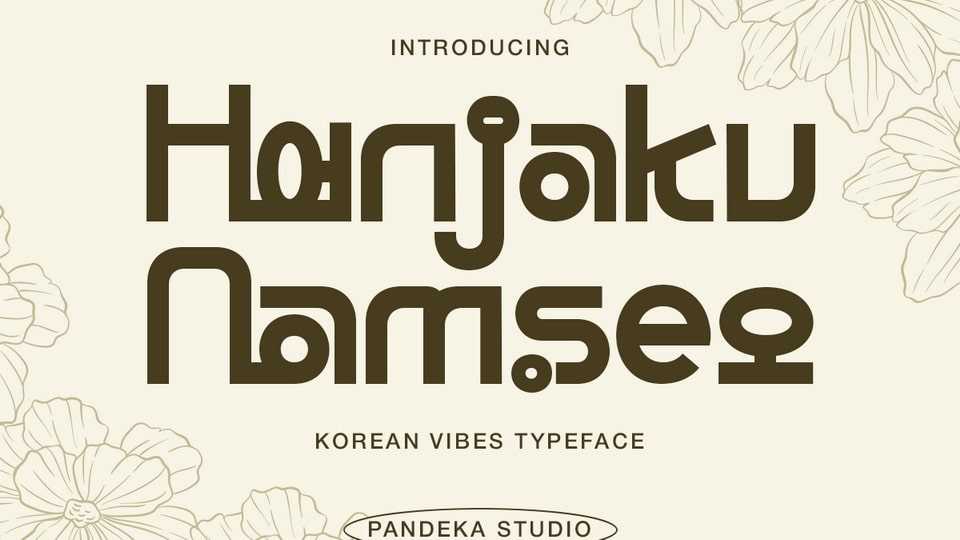
Download Hanjaku Namseo font, a bold and elegant Korean-style typeface that blends traditional aesthetics with modern flair, its graceful curves and cultural essence.